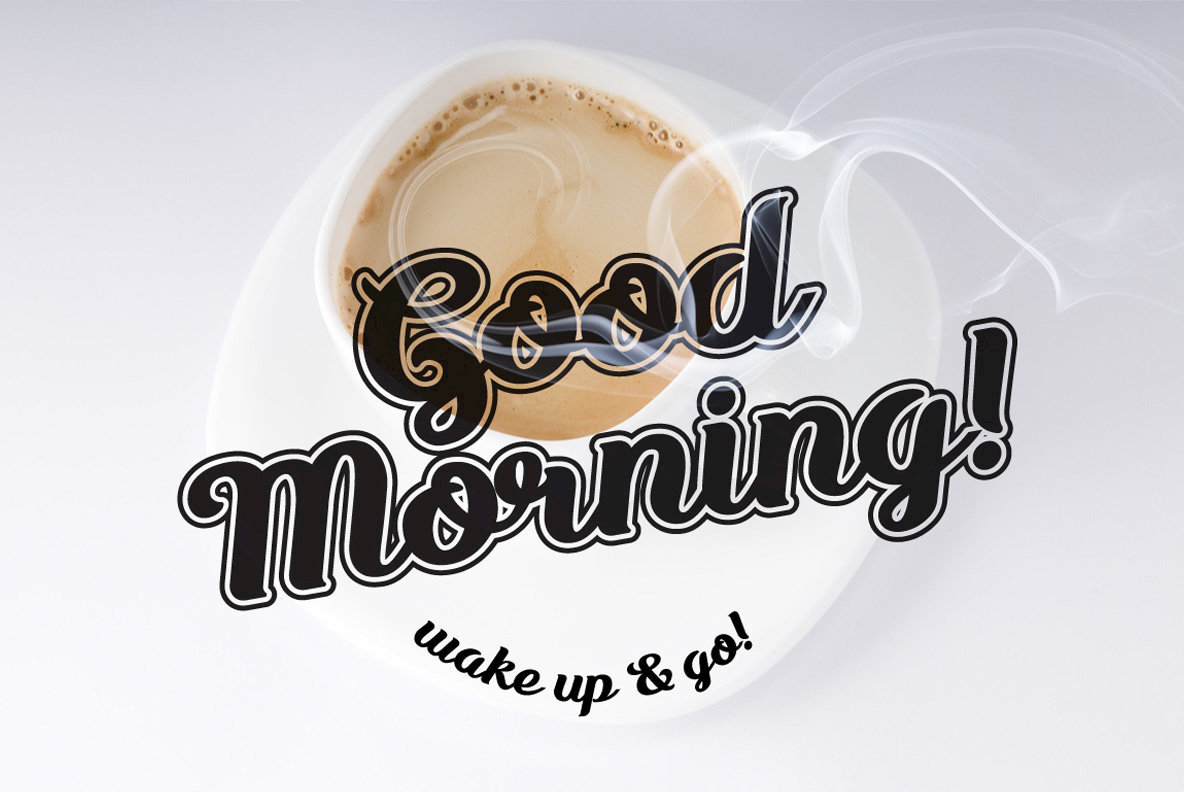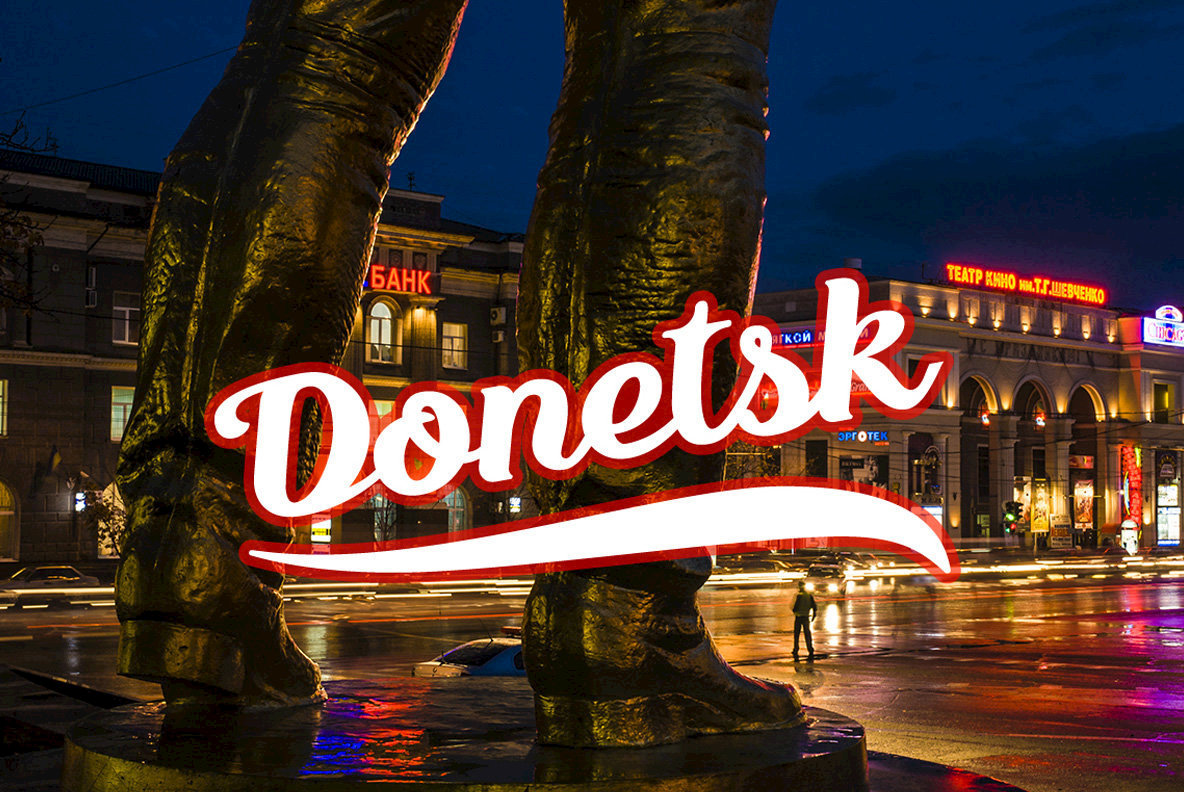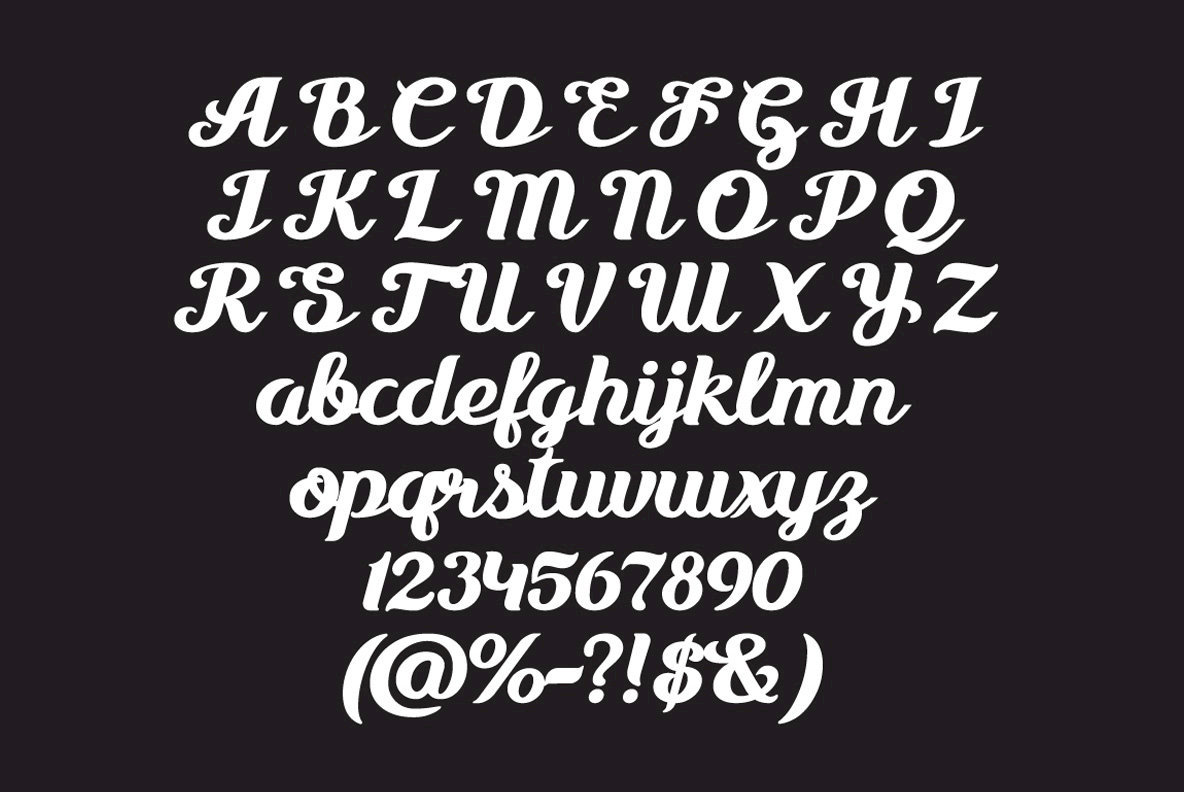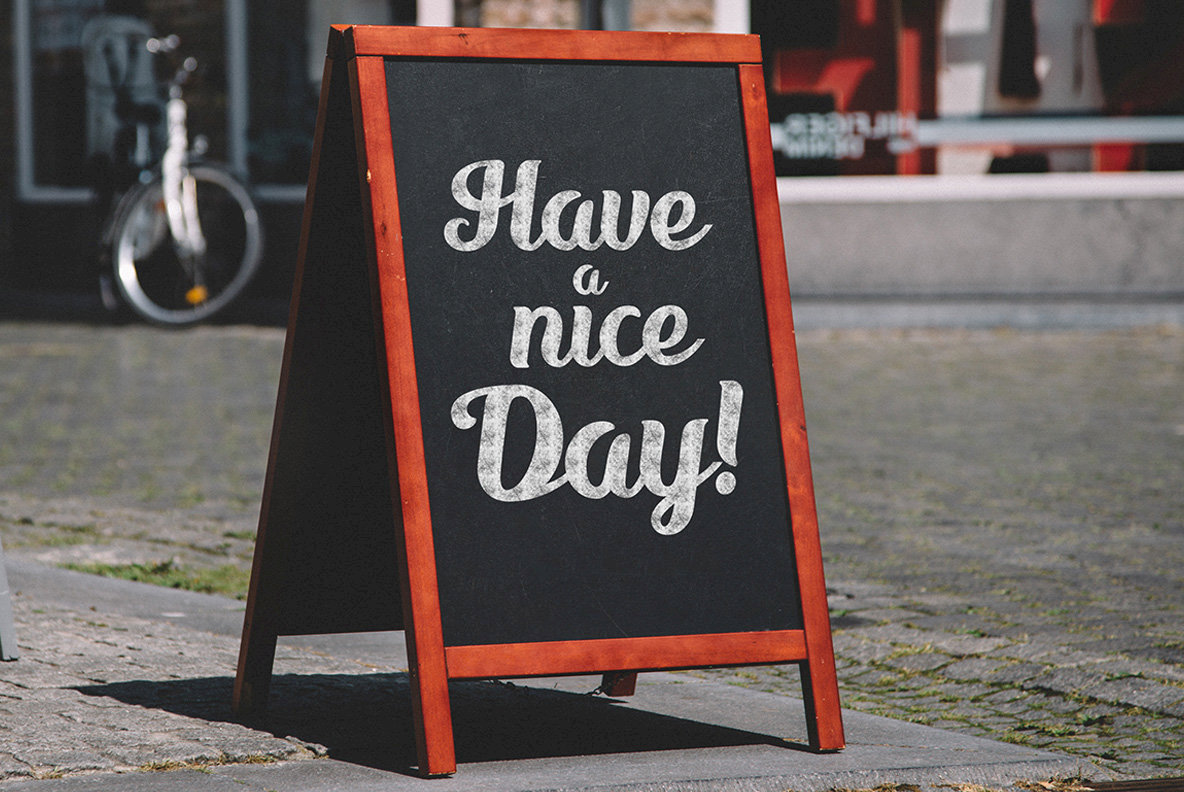
Hi Everyone! Introducing an elegant carefully crafted script with smooth connections - Awakening. You can use it as a logo, badge, insignia, packaging, headline, poster, apparel, greeting card, and wedding invitation.